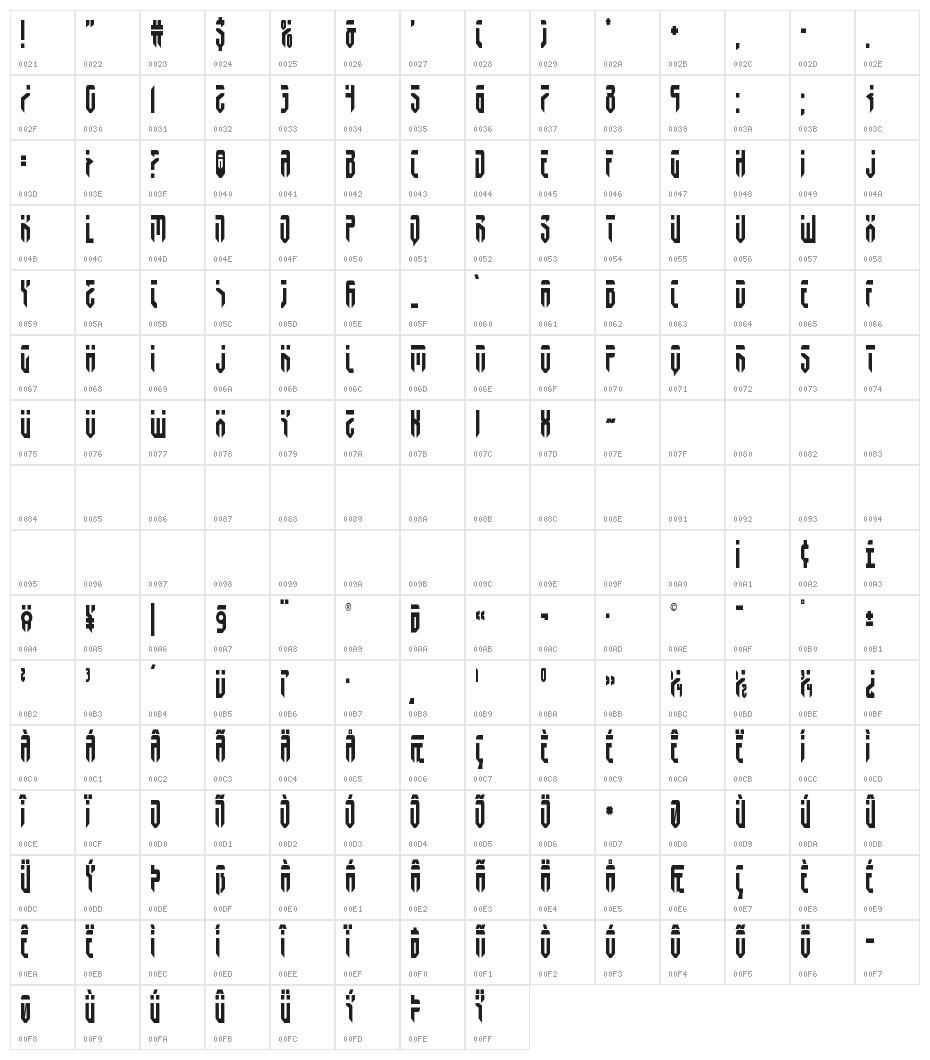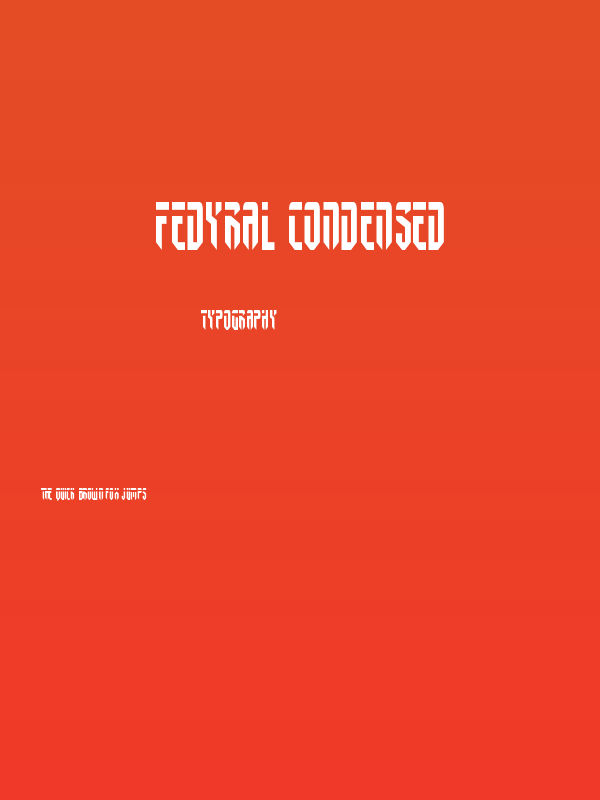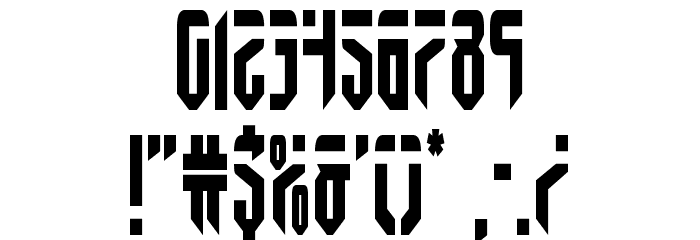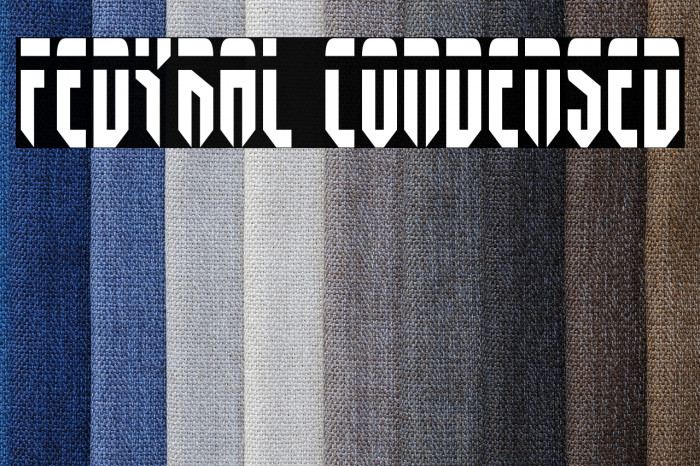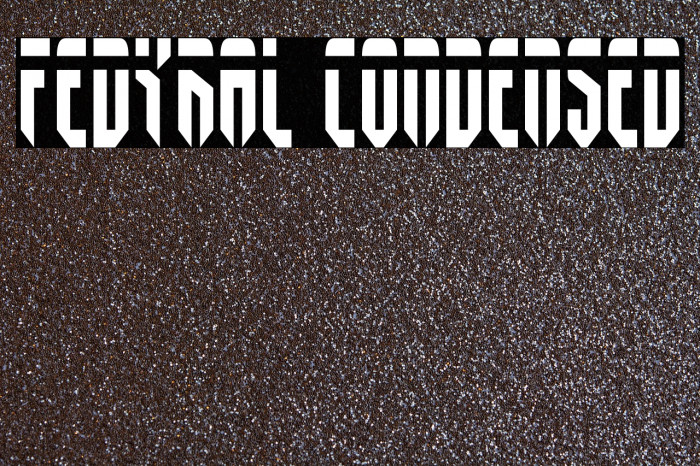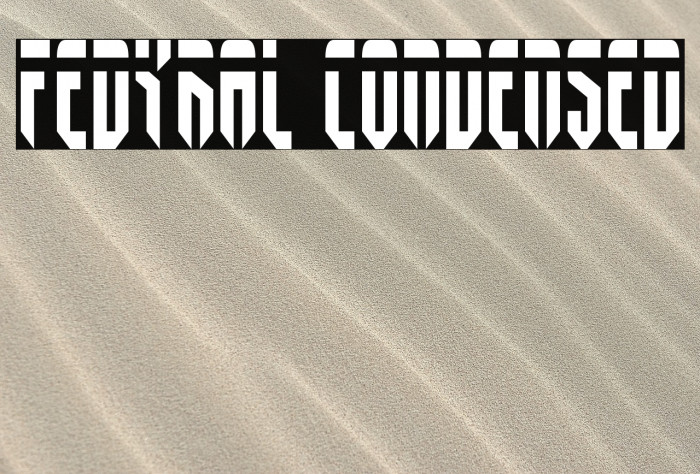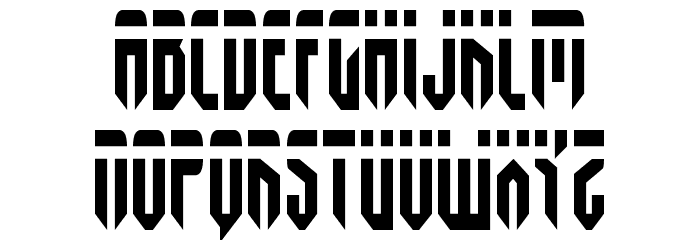
Fedyral Condensed Font
Fedyral Condensed Description
This font features a bold, geometric design with a condensed structure. The characters are sharply angular, giving it a futuristic and industrial feel. The uppercase and lowercase letters maintain a consistent height, contributing to a uniform appearance. The numbers and special characters are designed with the same angular style, ensuring cohesion across all elements. The font's distinctiveness lies in its blocky, stencil-like cuts, which create a sense of movement and modernity. This design is particularly eye-catching and would stand out in any visual context.
| Proposed Projects | Ideal for projects requiring a modern, edgy look such as tech branding, sci-fi posters, or video game titles. |